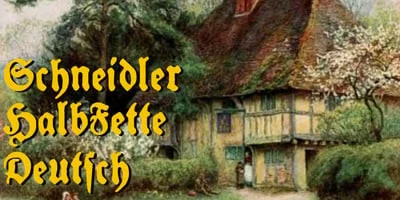
Schneidler Halb Fette Deutsch Font
The Schneidler Halb Fette Deutsch Font is ideal for German cultural institutions, traditional Bavarian restaurants, Oktoberfest celebrations, Germanic heritage museums, classical music conservatories, Austrian alpine tourism, traditional German bakeries, and European architectural documentation. This distinguished typeface excels in applications where authentic German typographic tradition and cultural heritage need to be communicated, making it perfect for organizations that want to honor Germanic design legacy while maintaining contemporary relevance.
What makes Schneidler Halb Fette Deutsch Font exciting is its masterful representation of classical German typography and meticulous craftsmanship that embodies centuries of Germanic design excellence. The font's traditional letterforms and precise construction create an atmosphere of cultural authenticity and scholarly refinement, making it ideal for institutions that want to communicate deep respect for German artistic traditions and intellectual heritage. Its authoritative character design reflects the precision and attention to detail characteristic of German craftsmanship.
The Schneidler Halb Fette Deutsch Font family typically includes regular, medium, and bold weights, often featuring traditional German ligatures, specialized Umlauts, and classical ornamental elements that enhance its authentic Germanic appeal. Many versions include historical symbols, traditional decorative flourishes, and comprehensive European character sets that provide designers with authentic tools for creating historically accurate German-inspired design projects.
For designers working on projects that require authentic Germanic typography and cultural credibility, Schneidler Halb Fette Deutsch Font offers exceptional historical accuracy. Its ability to instantly communicate German heritage and scholarly authority makes it an invaluable choice for cultural institutions, academic publishers, and any project requiring typography that embodies the precision, tradition, and intellectual rigor of classical German design and typographic excellence.